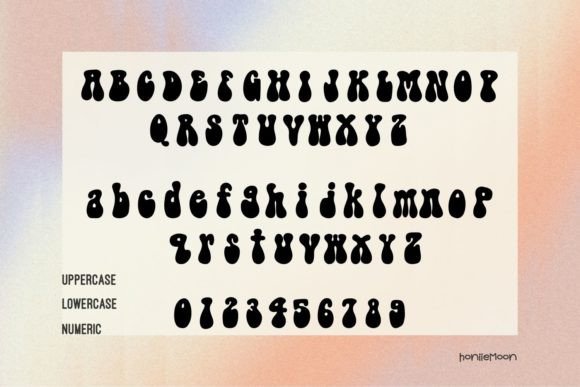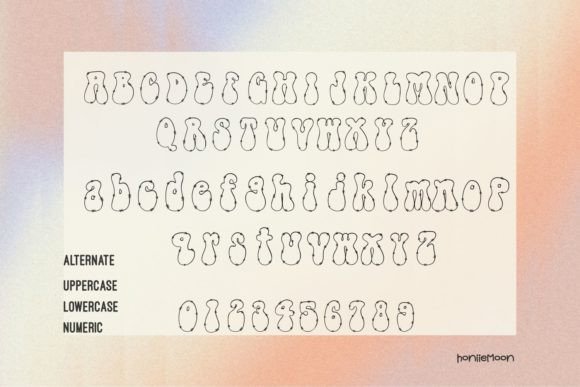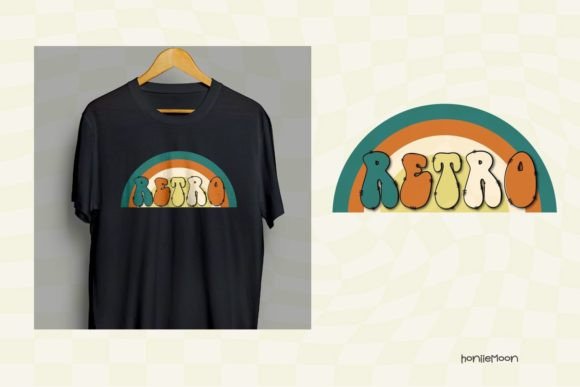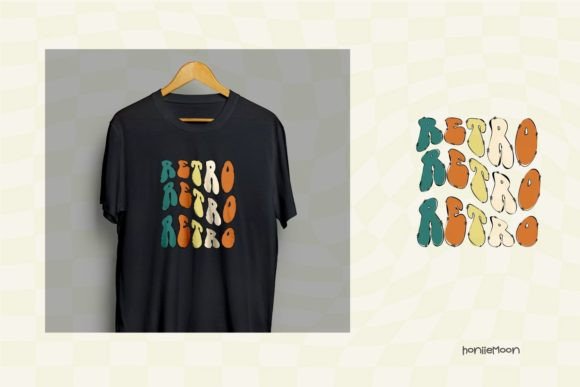
Unlock the Groovy Letters Font: Add a Touch of Whimsy to Your Designs
Remember the thrill of creating something entirely new? The spark of an idea, the rush of excitement as you bring it to life, and the sense of satisfaction when it’s finally complete? That’s what happens when you unleash your creativity, and that’s exactly what the Groovy Letters Font is designed to do.
This cool and fun display font is more than just a typographic addition to your designs – it’s a key to unlocking your imagination. With its cute and jolly vibe, Groovy Letters Font adds a touch of whimsy to each project, making it stand out from the crowd. As a designer, you’ll appreciate its versatility and the ease with which you can access its glyphs and swashes thanks to its PUA encoding.
Whether you’re a seasoned pro or just starting out, the Groovy Letters Font is an invaluable addition to your design toolkit. So why not give it a try and see where it takes you?
Groovy Letters Font Key Features
- Font Style: Groovy Letters Font is a unique, hand-drawn font with a fun and playful design, making it perfect for creative projects.
- Character Set: Includes a wide range of characters, including uppercase and lowercase letters, numbers, and punctuation marks, making it a comprehensive font solution.
- Unique Characteristics: Features a distinctive, hand-crafted look with subtle imperfections, adding a touch of personality to any design project.
Designer Review: Groovy Letters Font
I recently had the chance to work with the Groovy Letters Font, and I’m excited to share my honest review with you.
- Unique Style: The Groovy Letters Font has a truly unique style that’s perfect for those looking for something out of the ordinary. The swirling, psychedelic patterns add a touch of fun and whimsy to any design.
- High-Quality Vectors: The font comes with high-quality vector files that make it easy to resize and manipulate without losing any quality.
- Easy to Read: Despite its playful design, the Groovy Letters Font is surprisingly easy to read, making it a great choice for both digital and print projects.
- Limited Character Set: The font has a relatively small character set, which may limit its use in certain projects.
- Not Suitable for Body Text: While the Groovy Letters Font is perfect for headings and titles, it’s not suitable for large blocks of body text due to its playful, attention-grabbing nature.
Overall, I think the Groovy Letters Font is a great choice for designers looking to add some personality to their projects. While it has some limitations, its unique style and high-quality vectors make it a valuable addition to any design toolkit.
Tips: Use the Groovy Letters Font for eye-catching headlines and titles. Experiment with different font sizes and colors to create visual interest.
Tips: Use the Groovy Letters Font for creative typography projects, such as hand-lettered quotes or custom logos.
Tips: Use the Groovy Letters Font for creative presentation titles or headings in Word documents.
The Groovy Letters Font is ideal for:
– Creative typography projects
– Eye-catching headlines and titles
– Custom logos and branding
– Hand-lettered quotes and phrases